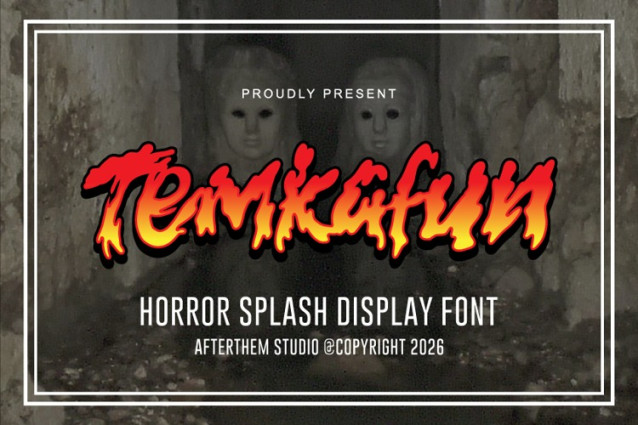
Temkafun Font
Temkafun Font is a simple and modern display font suitable for quotes, logos, headings, titles, and many more. Use it on any of your creative projects, and your designs will become outstanding!